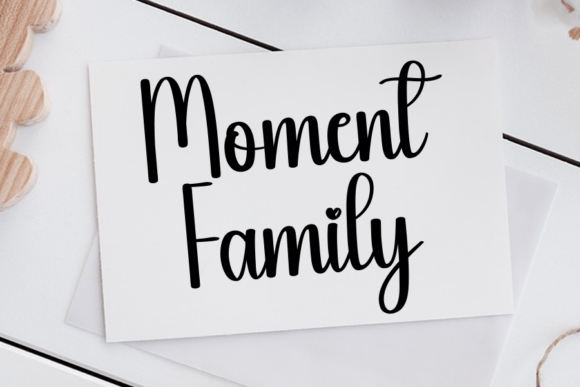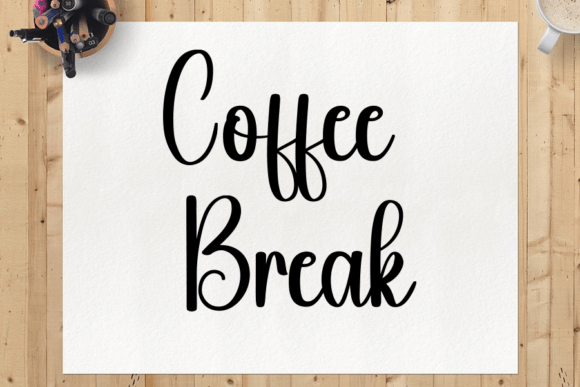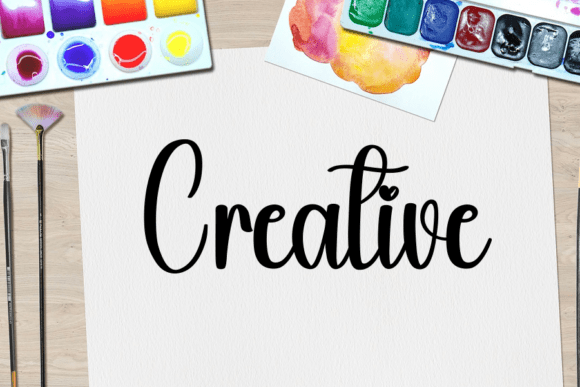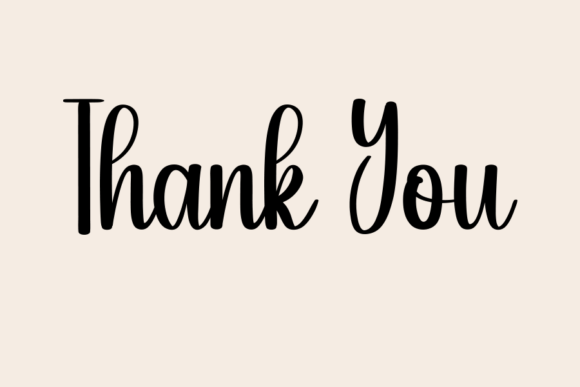
Introducing the Disney Font: A Magical Handwritten Font for Enchanting Designs
Are you ready to add a touch of magic to your designs? Look no further than the Disney font, a captivating new handwritten font that brings the wonder of fairy tales and animated enchantment to life. This modern font is perfect for designers, crafters, and anyone looking to evoke nostalgia, enchantment, and playful romance in their work.
The Characteristics of the Disney Font
The Disney font is defined by its smooth, thick script and iconic, exaggerated swirls and loops that inject pure whimsy and charm. The large loop over the ‘D’ and the little heart dot above the ‘i’ are just a few examples of the unique features that make this font stand out. The clean curves of the font ensure legibility, making it perfect for a variety of design applications.
Perfect for Children’s Branding and Design
The Disney typeface is perfect for children’s branding, party invitations, personalized gifts, and magical event decor. Imagine creating a brand identity for a children’s clothing line or toy company that features this enchanting font. The Disney font is sure to delight kids and parents alike with its playful and romantic charm.
Unforgettable Statement Piece
The Disney font is not just a font, it’s an unforgettable statement piece. The unique swash characters make this modern handwritten font a standout in any design. Whether you’re creating a logo, invitation, or social media graphic, the Disney font is sure to make your design pop.
Design Applications for the Disney Font
The Disney font is versatile and can be used in a variety of design applications, including:
- Children’s branding and packaging
- Party invitations and decorations
- Personalized gifts and stationery
- Magical event decor and signage
- Logos and brand identities
Why Choose the Disney Font?
So why choose the Disney font for your next design project? Here are just a few reasons:
- Unique and eye-catching design
- Perfect for children’s branding and design
- Easy to read and legible
- Versatile and can be used in a variety of design applications
The Disney font is a captivating new handwritten font that brings the magic of fairy tales and animated wonder to life. With its smooth, thick script and iconic, exaggerated swirls and loops, this modern font is perfect for designers, crafters, and anyone looking to evoke nostalgia, enchantment, and playful romance in their work. Whether you’re creating a brand identity, party invitation, or social media graphic, the Disney font is sure to make your design unforgettable.